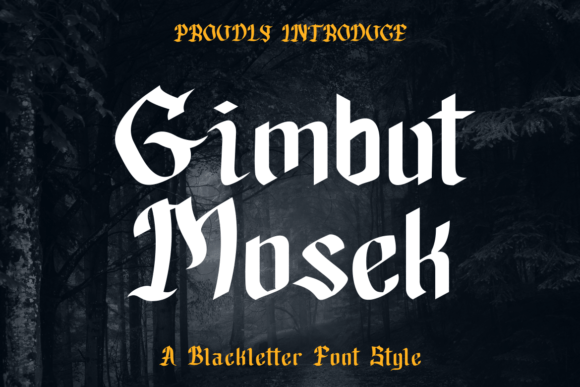
Introduction to Gimbut Mosek Font
Gimbut Mosek is a bold and thick lettered blackletter font.
Add it confidently to your projects, and you will love the results This font is PUA encoded which means you can access all of the glyphs and swashes with ease.
Key Features of Gimbut Mosek Font
Why Choose Gimbut Mosek Font?